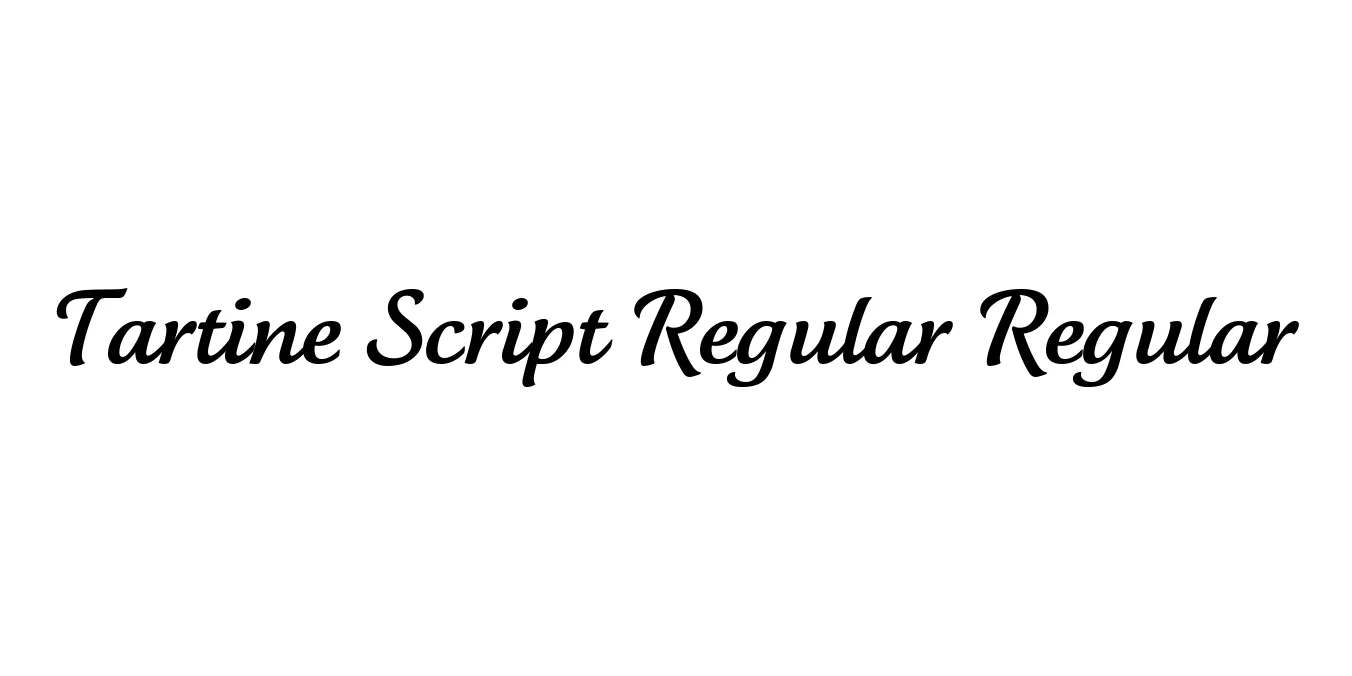
Tartine Script Regular Regular
Designed by Xavier Dupré
Tartine Script was designed by Xavier Dupré in 2002 and released through the Emigre font foundry. It is characterized by its soft, round shapes and an informal, friendly handwritten aesthetic. Unlike many formal scripts, Tartine Script avoids excessive flourishes, opting instead for a warm, approachable rhythm that mimics the fluid stroke of a felt-tip pen or brush.
The typeface draws inspiration from mid-20th-century food packaging and sign painting, making it exceptionally effective for culinary and organic branding. Its high legibility and playful weight variations allow it to stand out in both display headlines and smaller subheadings, bridging the gap between nostalgic charm and contemporary graphic design needs. It remains a popular choice for designers looking for a human touch without the stiffness of traditional calligraphy.
Tartine Script Regular Best Uses
Ideal for logos and visual identities of organic food brands, cafes, and bakeries.
Perfect for artisanal product labels, snack packaging, and handmade goods.
Great for pull quotes, casual headers, and creative storytelling in lifestyle magazines.
Adds a personal, approachable touch to greeting cards and non-formal event invitations.